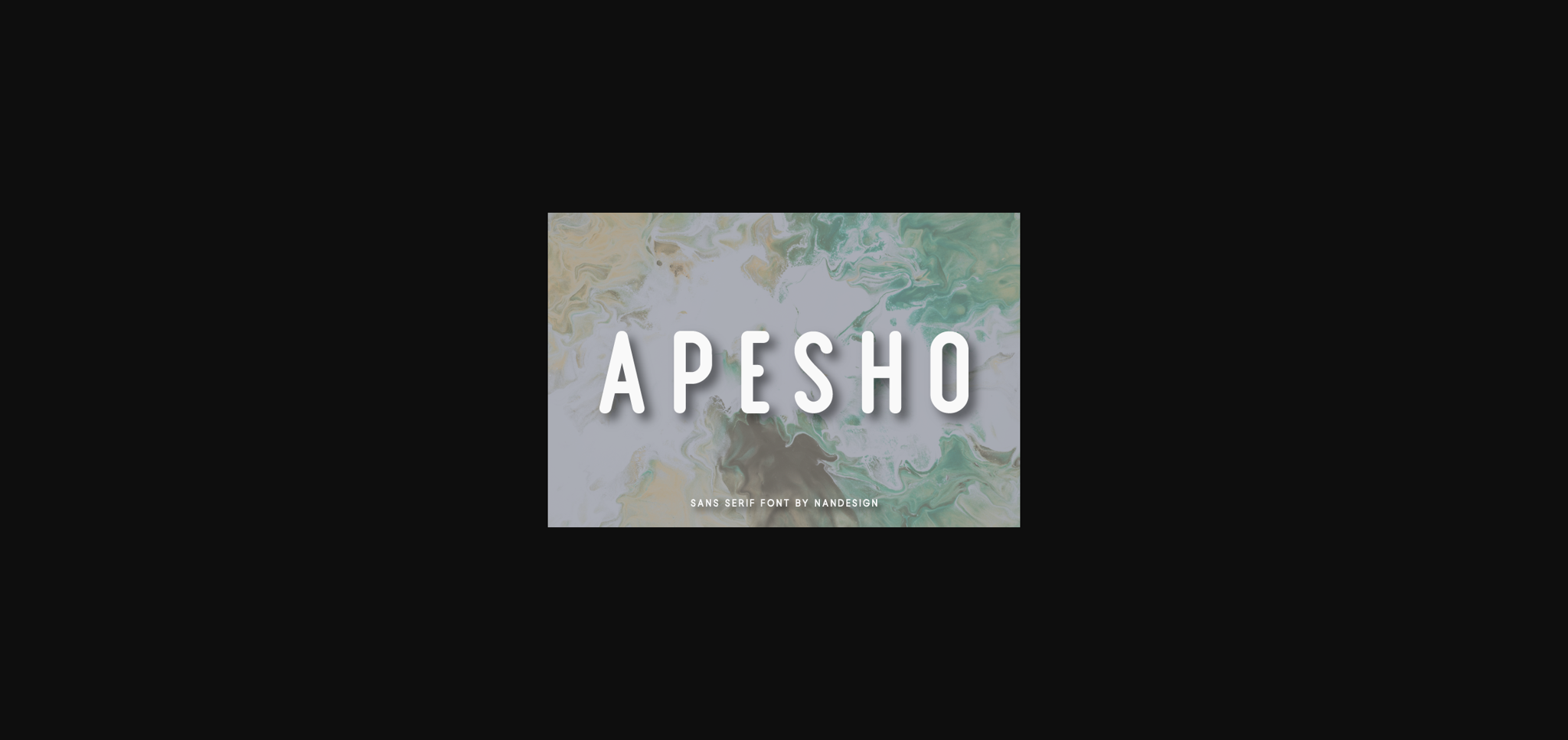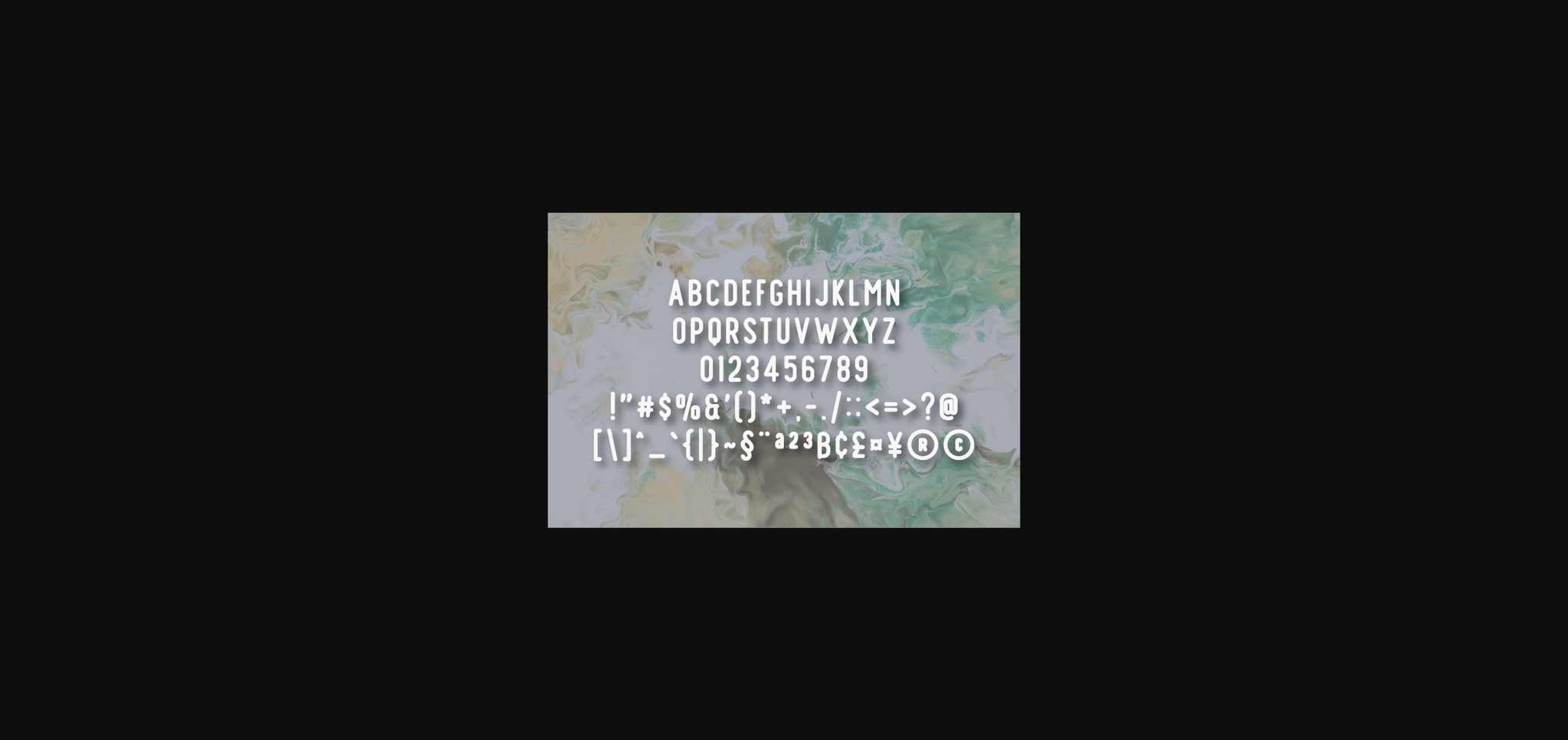
Apesho is a beautiful, round lettered sans serif font. Suitable to a wide variety of designs due to its neat and simple style, Apesho has the potential to become your favorite go-to font, no matter the occasion!